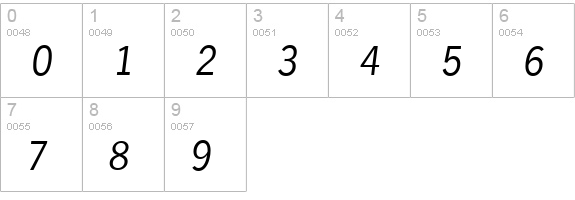
HamburgSerial-Light-Italic is a refined, elegant, italic variant in the HamburgSerial typeface family \xE2\x80\x94 well suited to elegant body text, refined sub-headings, and luxury branding.
HamburgSerial-Light-Italic is a sleek and modern font that exudes sophistication and elegance. Its light weight and italic style add a touch of grace to any design project, making it perfect for a variety of uses such as branding, editorial design, and more. This font features clean lines and a contemporary look that is sure to make your text stand out. Whether you're creating a logo, a website, or a flyer, HamburgSerial-Light-Italic will bring a touch of class to your design. Best of all, HamburgSerial-Light-Italic is completely free to download at FontsMarket.com. So don't hesitate to add this versatile and stylish font to your collection today!